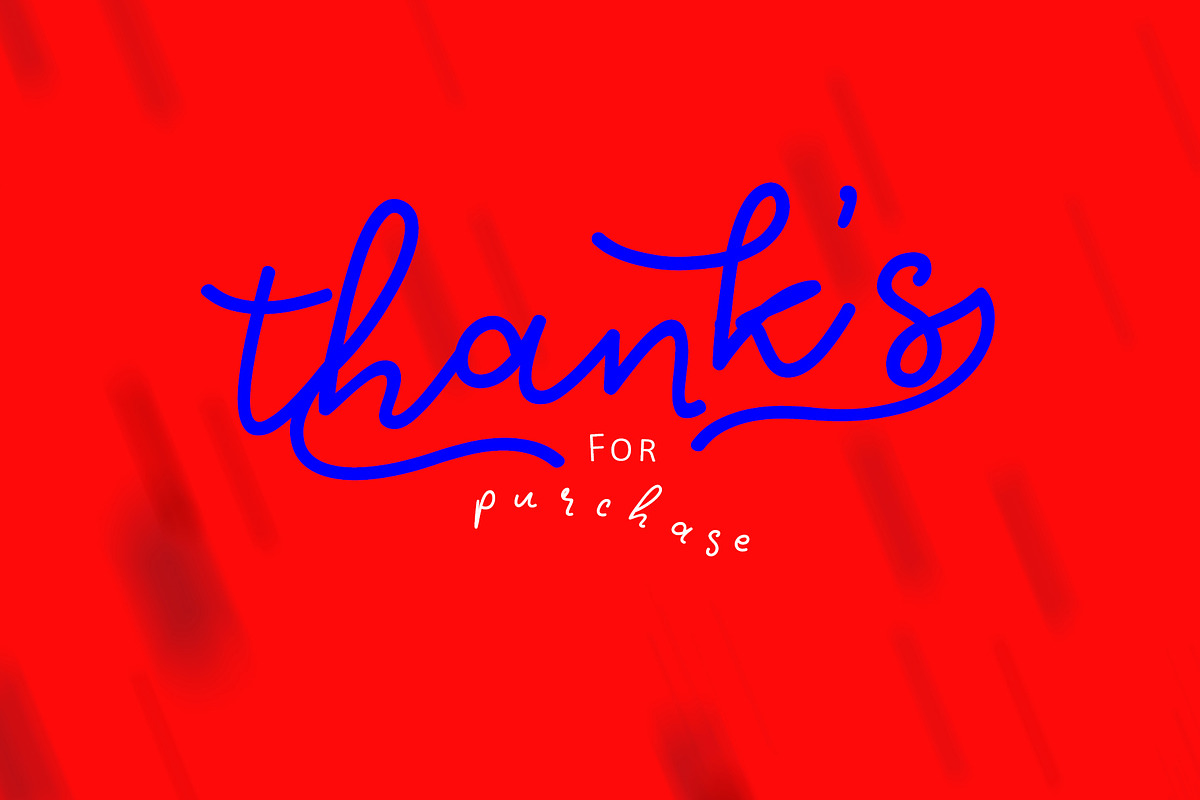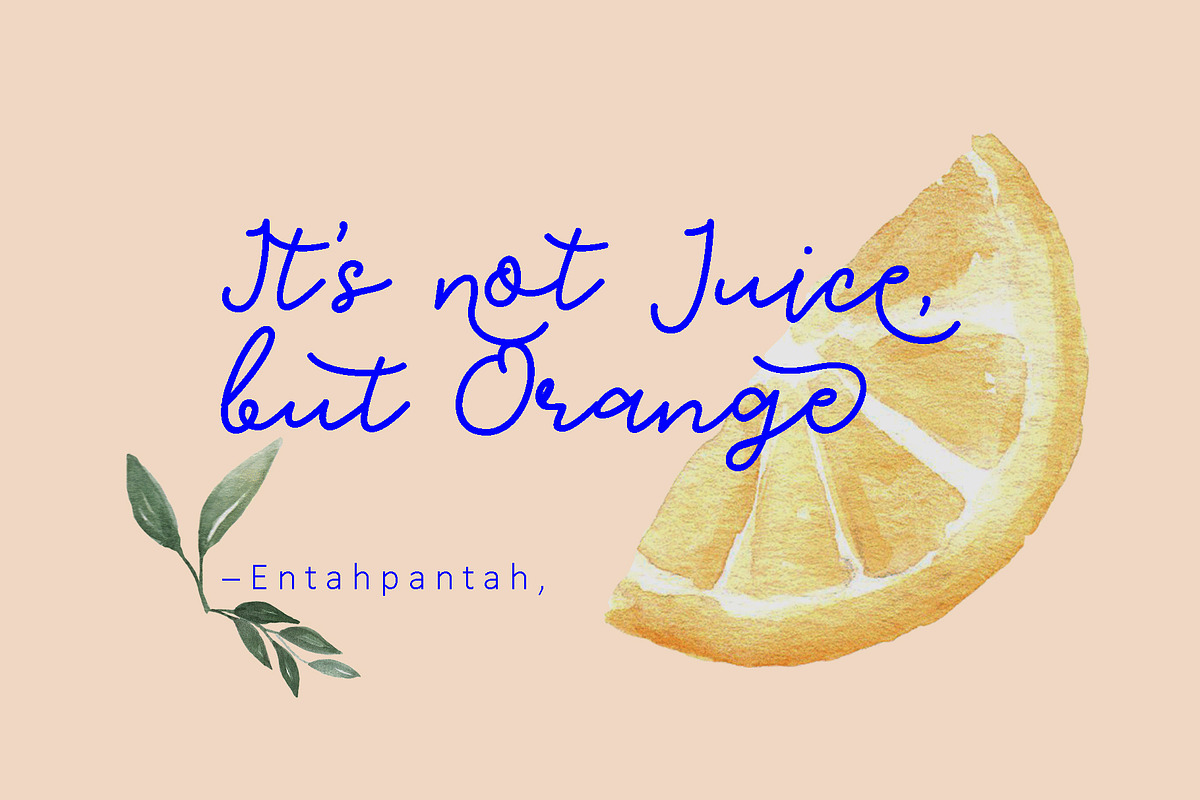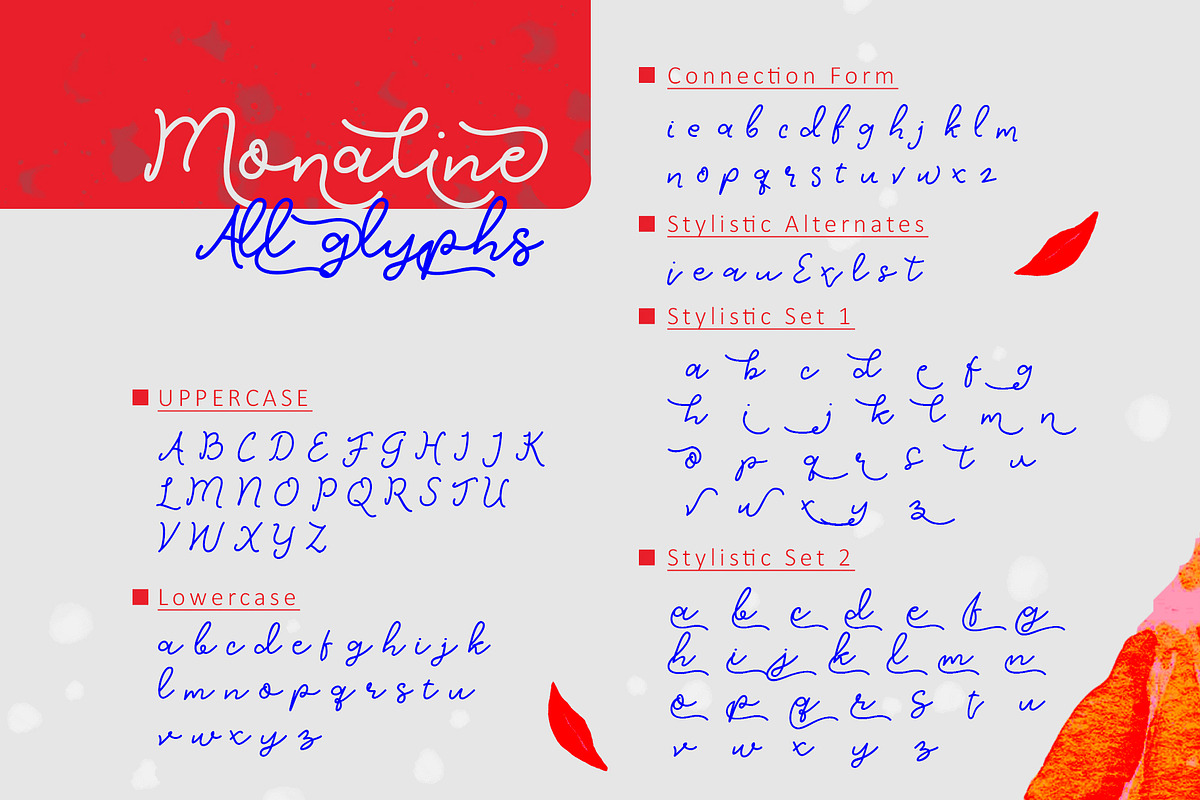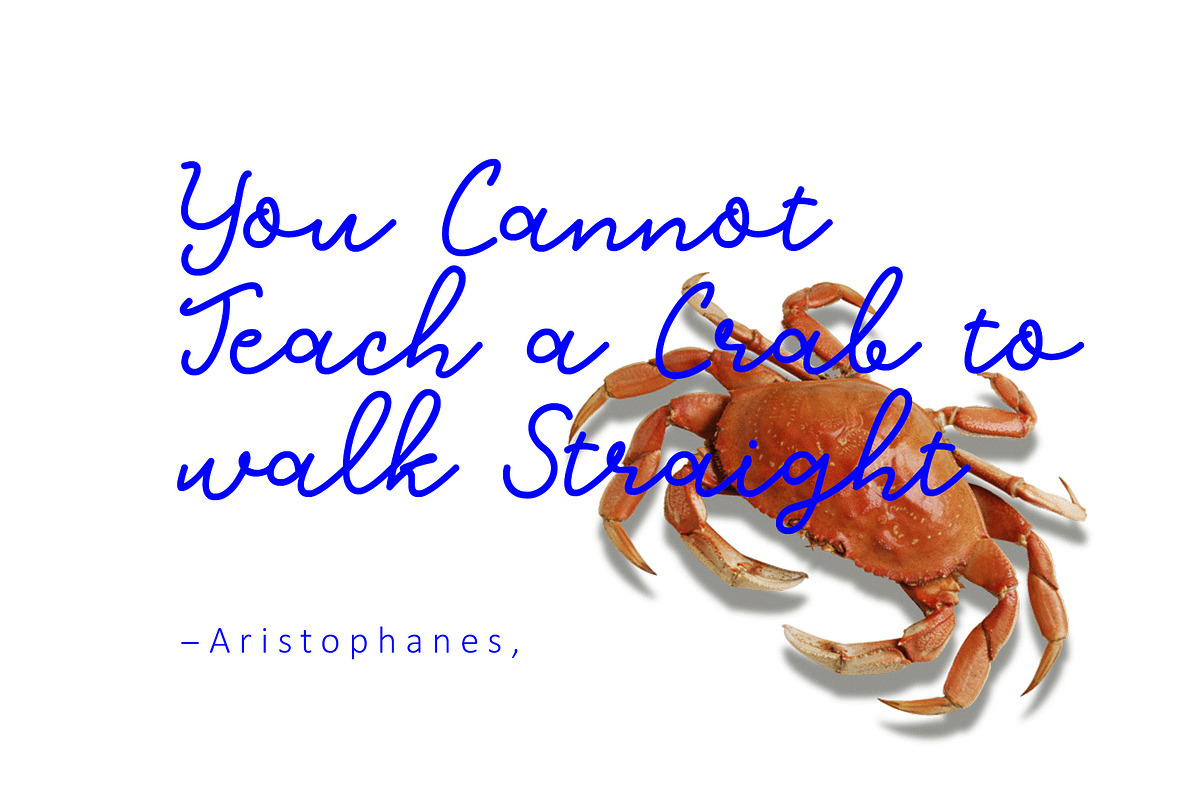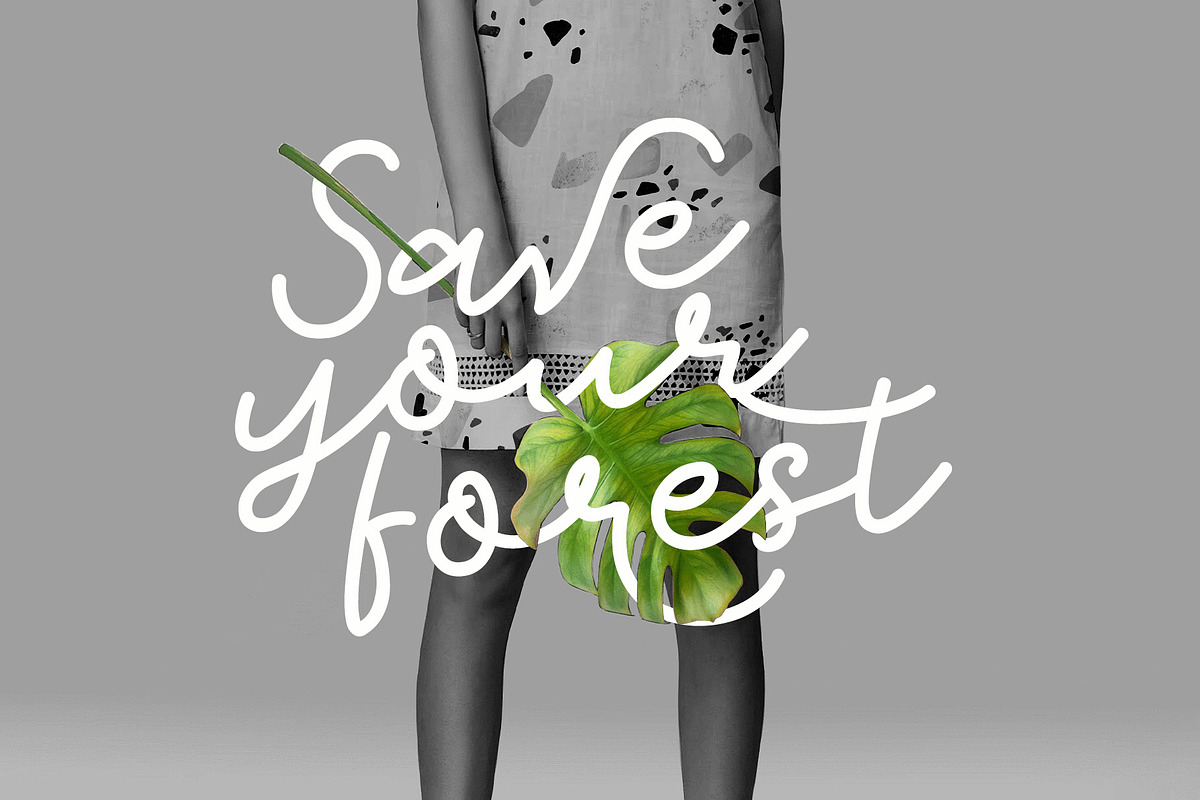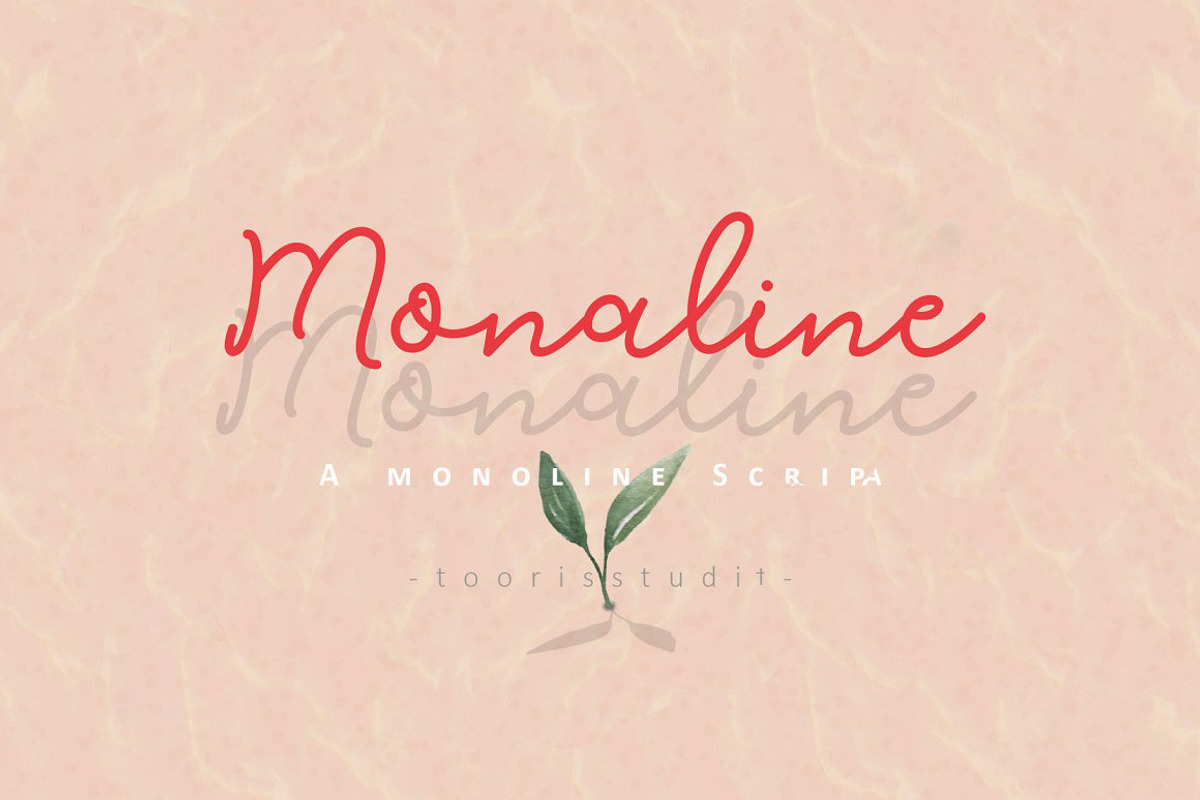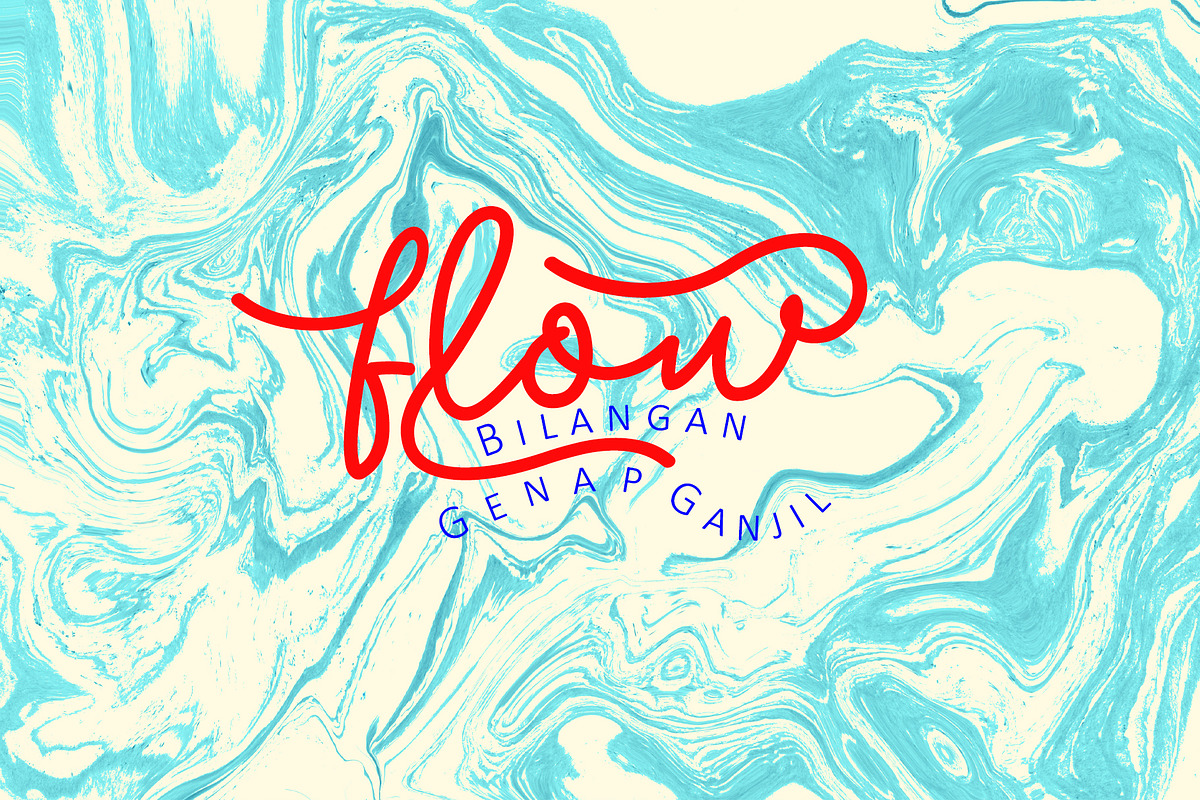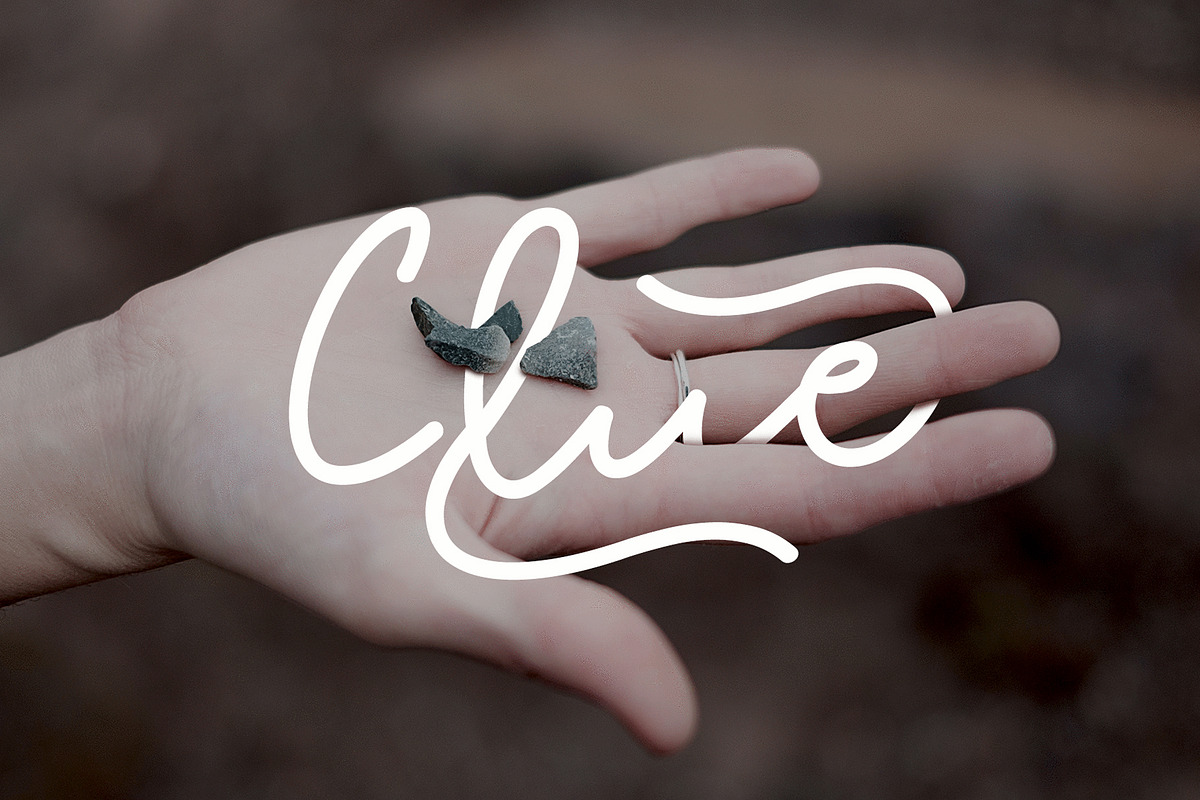
monaline mono script
Monaline script is a mono script font
Monaline is a writing font that is suitable for branding, signatures, wedding invitations, promotions, product packaging, especially for writing quotes and Instagram and other needs. This font is modern, simple, but still original. You will get a complete set of lower and uppercase letters, numbers and punctuation marks, multilingual symbols.